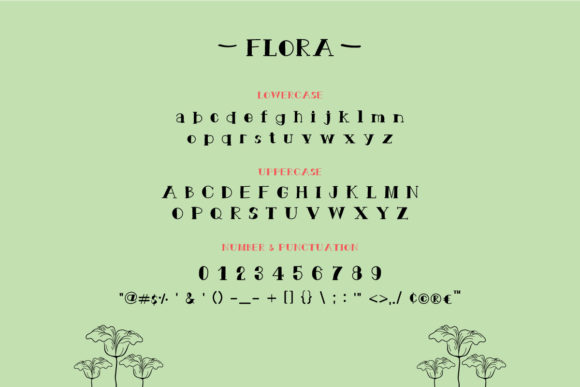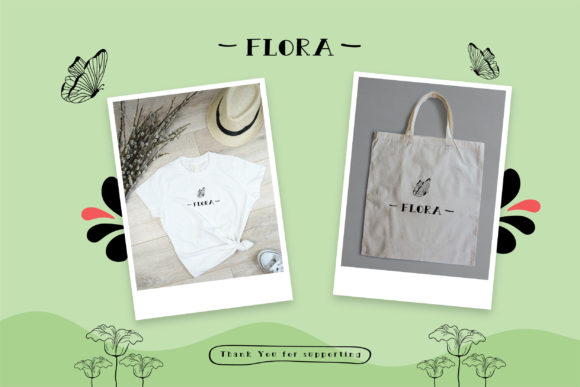
Have you ever been in the middle of a design project, and suddenly, you’re stuck on one thing: the font? You’re not alone! I recall working on a branding project for a client who wanted a bold, yet elegant look. I scoured the internet for the perfect font, but nothing seemed quite right. That was until I stumbled upon Flora Font. It was love at first sight! 💕
An Honest Review of Flora Font
So, what makes Flora Font so special? Let’s dive into the good stuff and, of course, the not-so-good stuff.
What I Love About Flora Font
- ✨ Bold and Authentic: Flora Font has a unique, bold style that’s perfect for making a statement.
- ✅ Versatile: Whether you’re working on a logo, brochure, or social media graphics, Flora Font adapts seamlessly.
- 💡 OpenType Features: This font comes with a range of OpenType features, including stylistic alternates and glyphs, giving you plenty of creative options.
While Flora Font is an excellent choice, there are a few things to keep in mind:
- 🤔 Limited Ligatures: Some users might find the limited number of ligatures a bit restrictive.
- ⚠️ Not Suitable for Body Text: Due to its bold nature, Flora Font might not be the best choice for lengthy body text.
The Backstory of Flora Font
Flora Font was designed with the intention of creating a bold yet authentic serif font that could stand out in any design project. Inspired by classic typography and modern design trends, Flora Font aims to bring a touch of elegance and sophistication to your creations.
| Font Name | Flora Font |
| Author | nattyinshop |
| What makes Flora Font unique? | Flora Font is unique due to its bold, authentic serif style and extensive OpenType features. |
| Is Flora Font suitable for body text? | While Flora Font can be used for body text, its bold nature makes it more suitable for headings and titles. |
In conclusion, Flora Font is a versatile and stylish addition to any designer’s font library. Its bold, authentic serif style, combined with extensive OpenType features, makes it perfect for a wide range of design projects. Whether you’re a designer, crafter, or creative hobbyist, Flora Font is sure to enhance your creations.